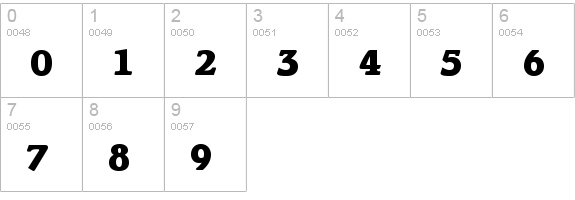
AT Bramley Extra Bold Font Details
AT Bramley Extra Bold is a strong, high-contrast variant in the AT typeface family \xE2\x80\x94 well suited to headlines, attention-grabbing titles, and strong calls-to-action.
AT Bramley Extra Bold is a striking and powerful display font that commands attention with its bold and assertive presence. Its thick strokes and sharp angles exude a sense of strength and confidence, making it the perfect choice for headlines, posters, and other eye-catching designs. This font is designed to make a statement and leave a lasting impression, whether in print or on screen. Its versatility allows it to be used in a variety of design projects, from branding and advertising to packaging and signage. And the best part? AT Bramley Extra Bold is available for free download at FontsMarket.com, making it easily accessible to designers and creatives looking to add a touch of boldness to their projects without breaking the bank. Download this font today and unleash its power in your next design endeavor.